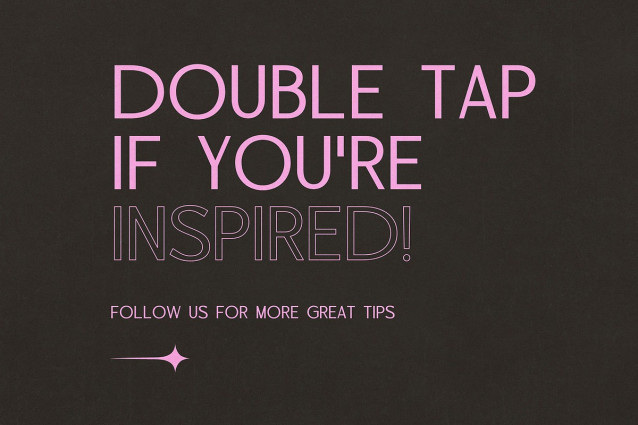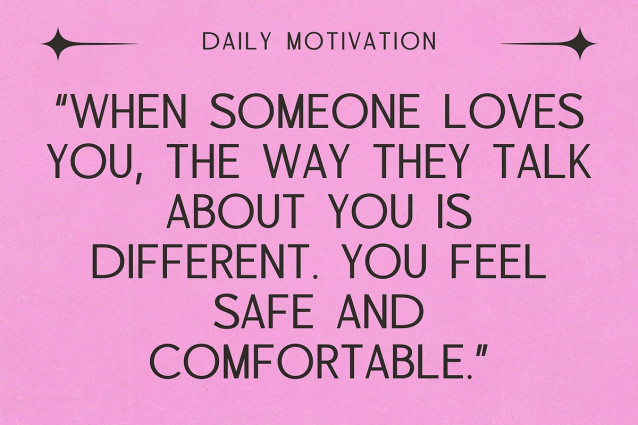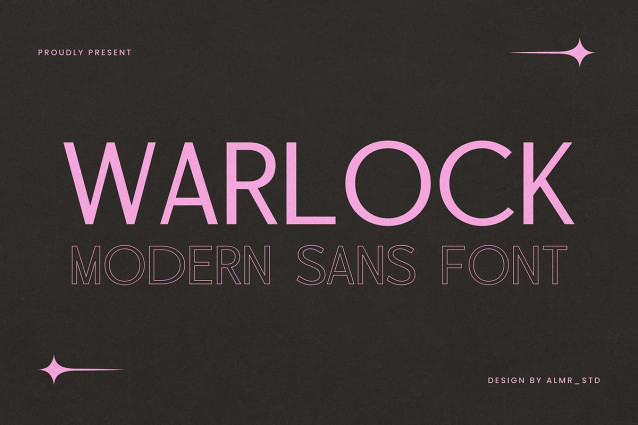
Warlock Sans Font
Warlock Sans Font, modern sans serif font with elegant style this is perfect for branding, logos, invitation, magazines, product packaging and more.